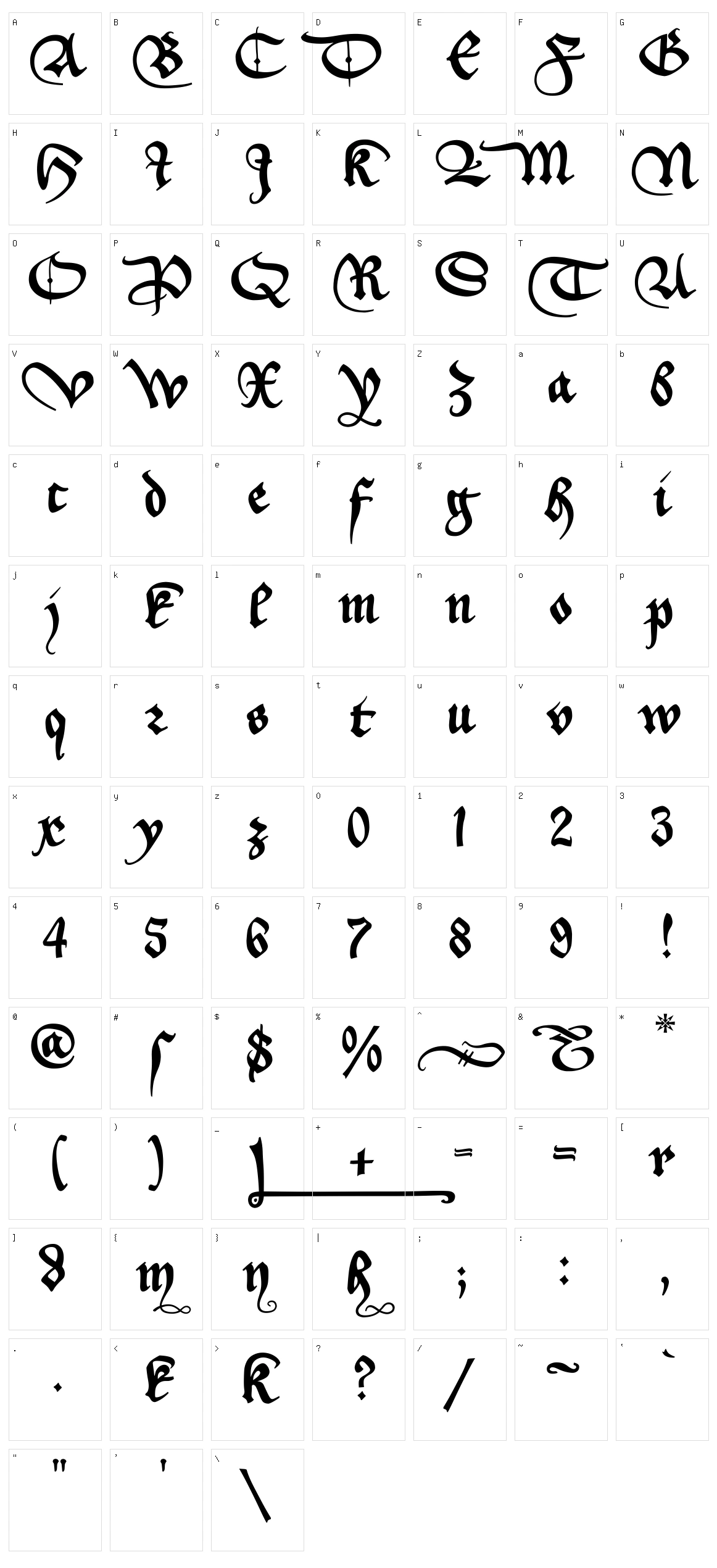
Aeiou
_a e i o u (UNICODE)
The _a e i o u font is based on a charter issued in 1460 by the German emperor Friedrich/Frederick III.
It has been called '_a e i o u', because Frederick used to have marked all objects of value he possessed -- or got made -- with the five vowels (and the font's underscore contains Frederick's typical underline stroke: the mark wouldn't be genuine without that).
As usual, the number sign in this font has been replaced with a long s. The other special characters are:
-an alternate *k* on the 'less than' sign, and
-an alternate *K* on the 'greater than' sign
Those have been made necessary by the regular *K* and *k* taking too much room -- looking rather messy in such important sentences like 'Jackdaws love my big sphinx of quartz'.
-an alternate *r* on the left bracket
-an alternate *d* on the right bracket
-a swashed *m* on the left curly bracket
-a swashed *n* on the right curly bracket
-a swash from the document on the ASCII tilde
-a swashed *h* on the bar and broken bar sign
-an alternate *f* on the masculine ordinal indicator
-a *long s*+*t* ligature on the long s sign.
The coat of arms contained in this font is based on the painting in the document.
UPDATE 2010 has redesigned all of the composite glyphs (correcting the *dcaron*, *L/lcaron*, and *tcaron*), and enlarged the dashes.